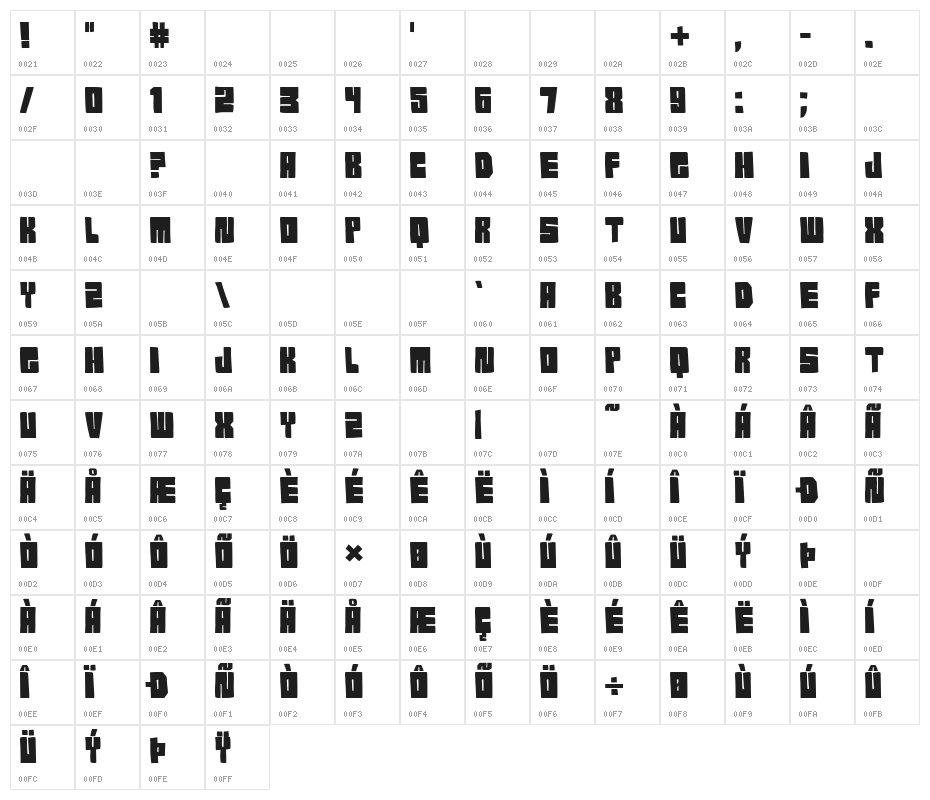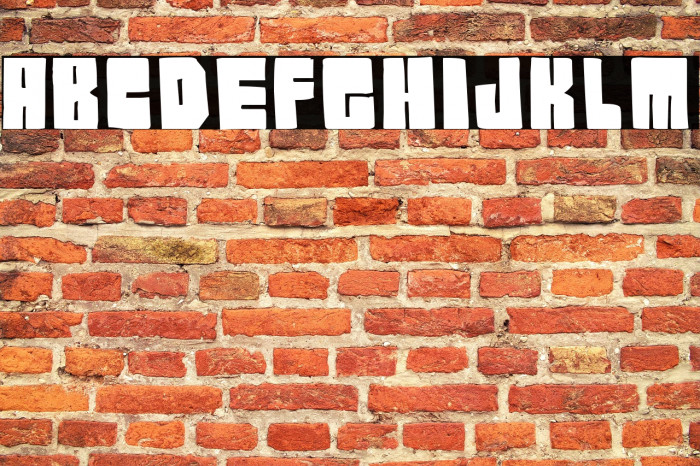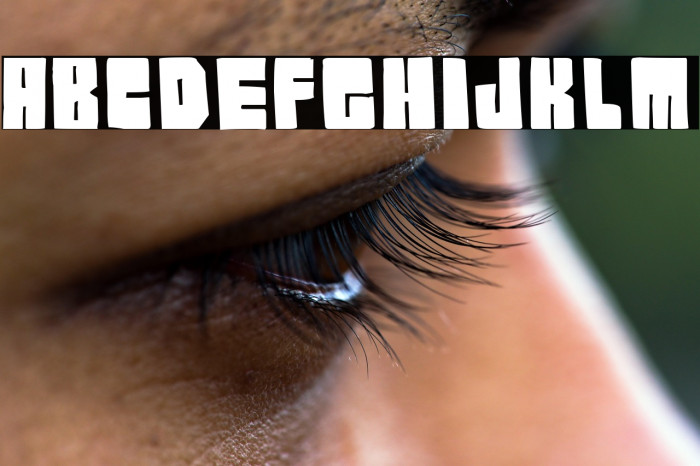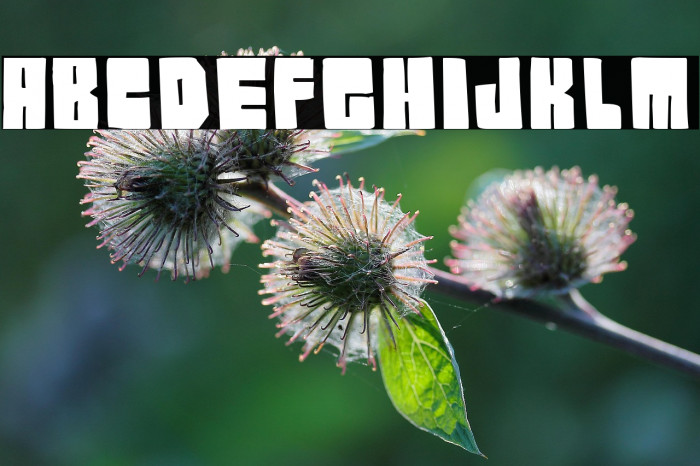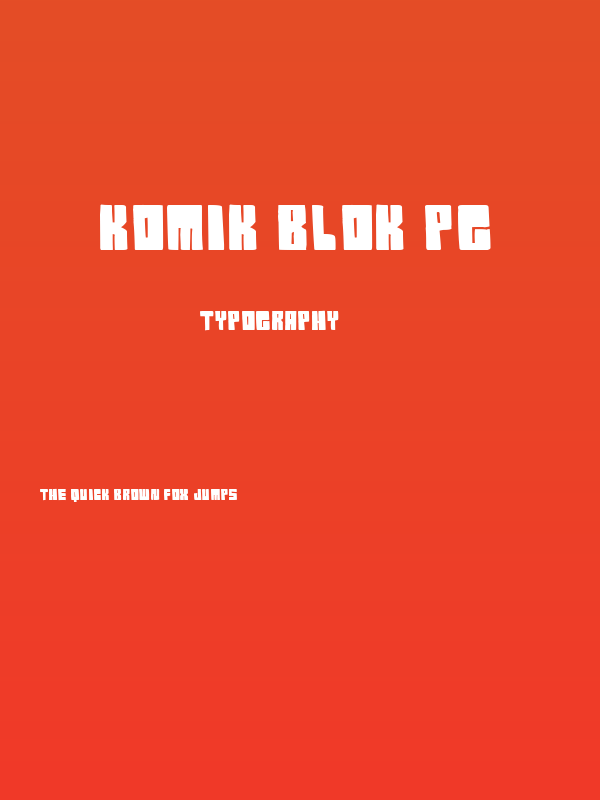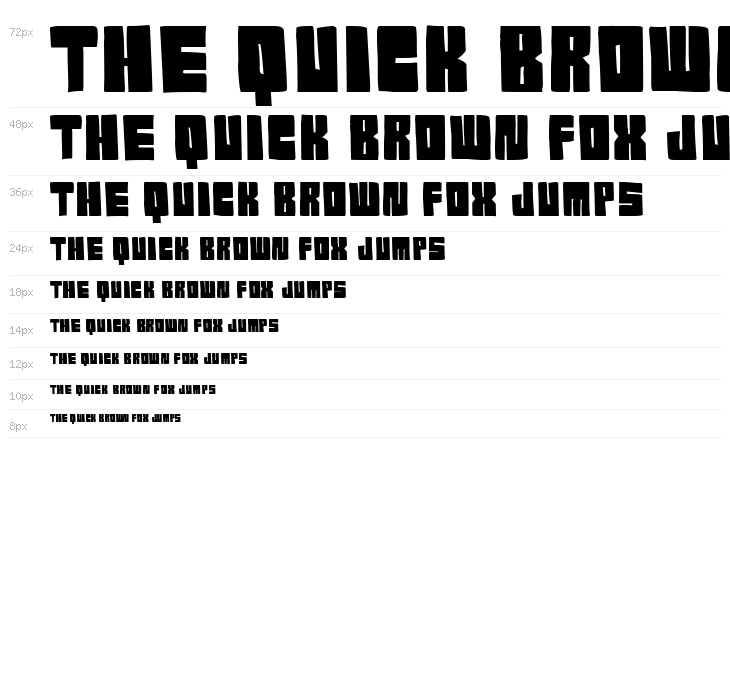
Komik Blok pg Font
Komik Blok pg Description
This font features a bold, blocky design with a playful and comic-like appearance. The characters are thick and have a slightly irregular shape, giving them a hand-drawn feel. The uppercase letters are uniform in height, while the lowercase letters maintain a consistent style that complements the uppercase. Numbers and special characters follow the same bold and chunky aesthetic, making them stand out. The overall look is dynamic and energetic, suitable for projects that require a fun and engaging typeface.
| Overall Style | Playful, Comic |
| Proposed Projects | Ideal for comic books, children's books, playful branding, posters, and any project needing a fun, bold typeface. |